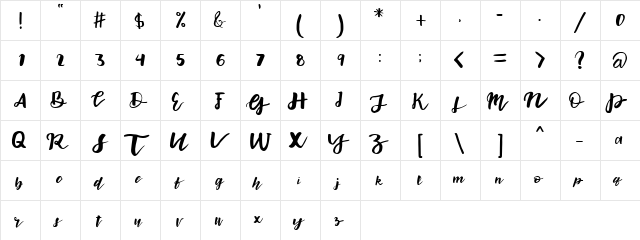
endorse Regular
Design Context for endorse Typeface
endorse is a composed and adaptable typeface that performs quietly and consistently across a wide range of design contexts.